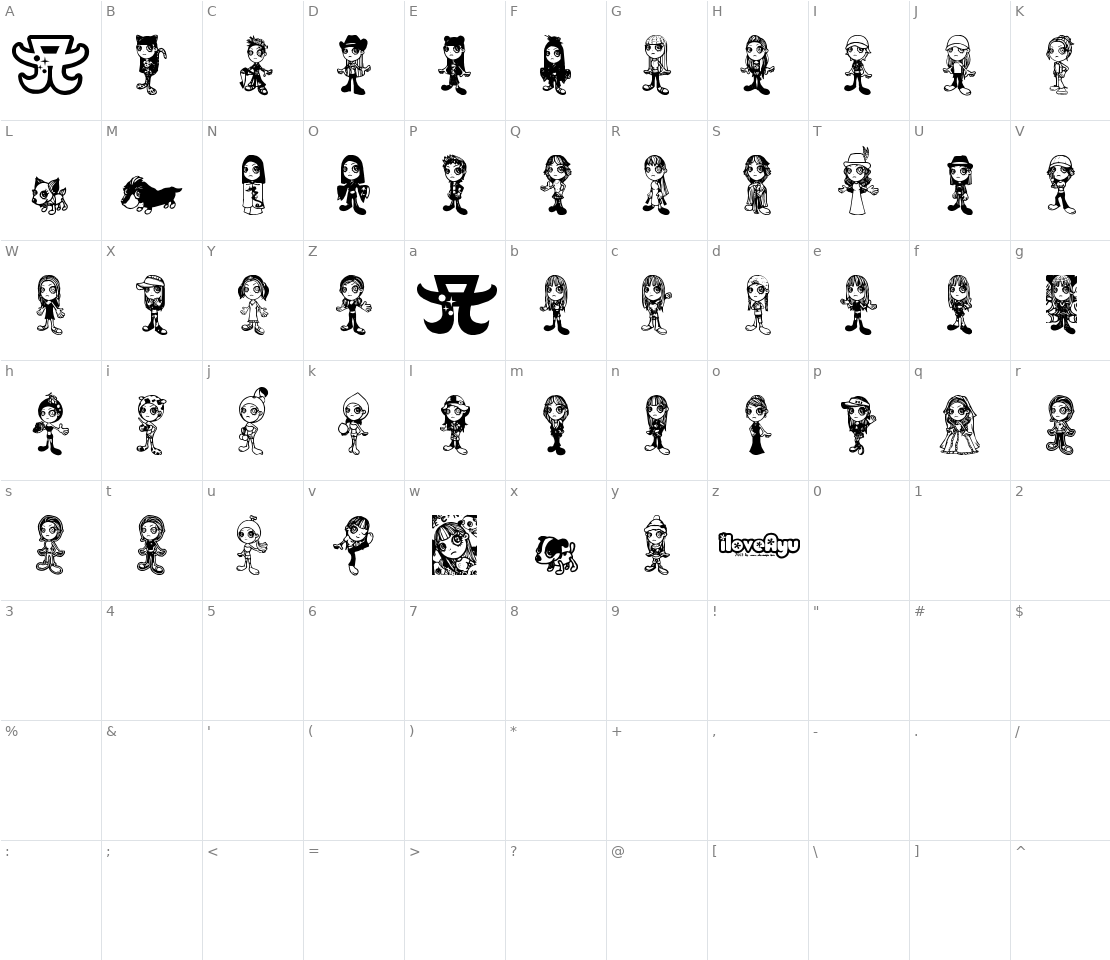
Ayupan
Ayupan is a novelty illustrated font where each character is built from cute, kawaii-style cartoon figures in the vein of Japanese character design. The letterforms are playful and densely decorative, closer to illustration than traditional typography. Strictly ornamental, it works for lighthearted headers, stickers, or themed projects where charm and personality outweigh readability.